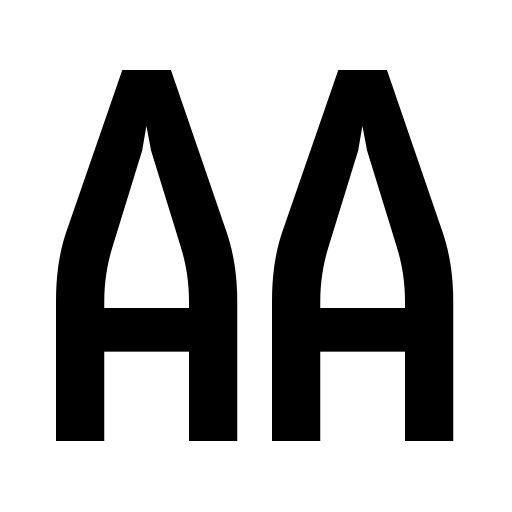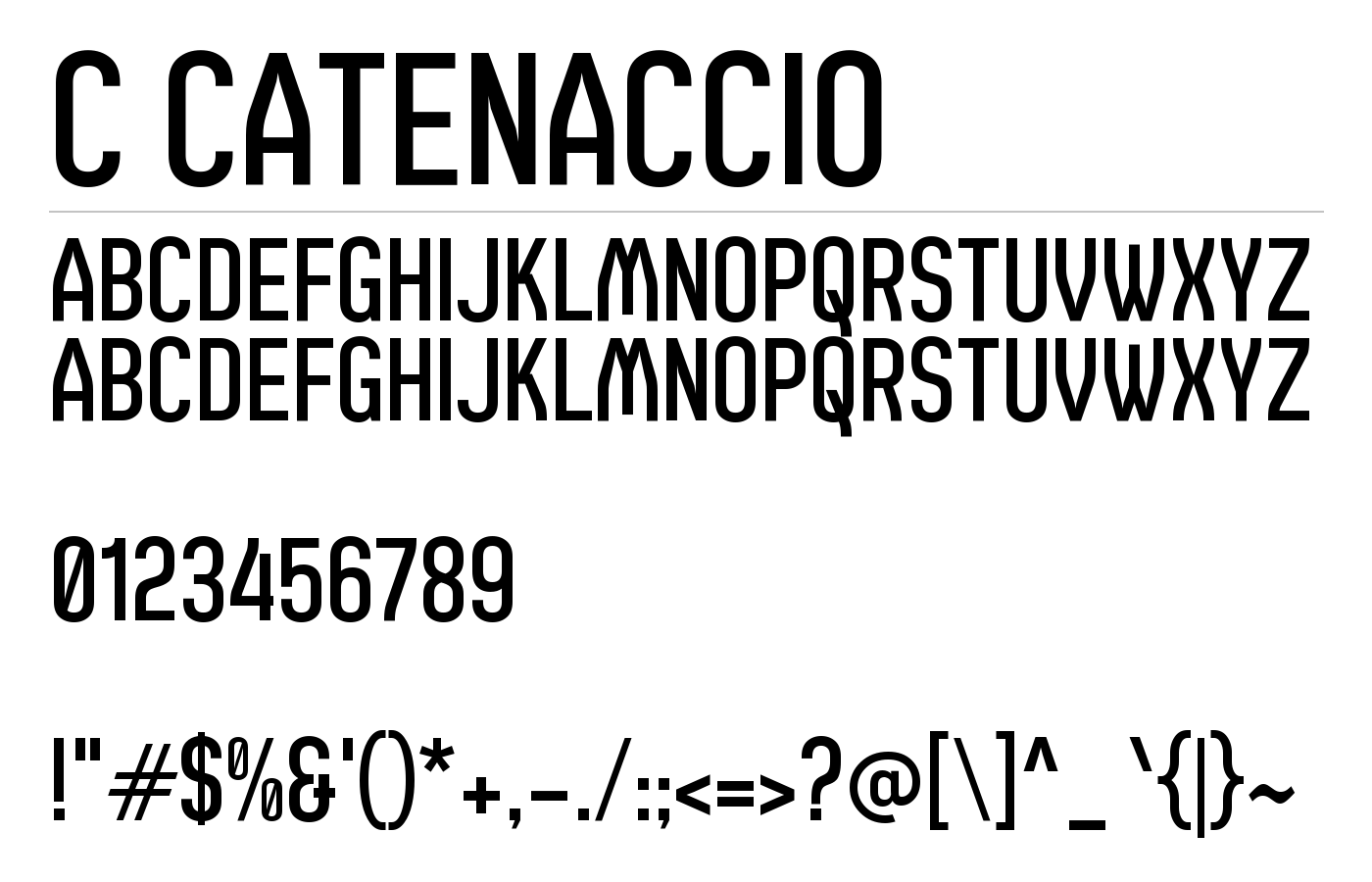
Catenaccio is a tall, condensed sans serif font that features a modern and geometric look with clean, sharp strokes and consistent medium contrast. Its all-caps design with single-story letterforms and narrow spacing gives it a strong, structured personality, making it ideal for bold headlines, branding, and editorial use where a contemporary and confident style is desired. This font works best in settings that require clear, impactful display text with a sleek and urban feel.
c Catenaccio Font